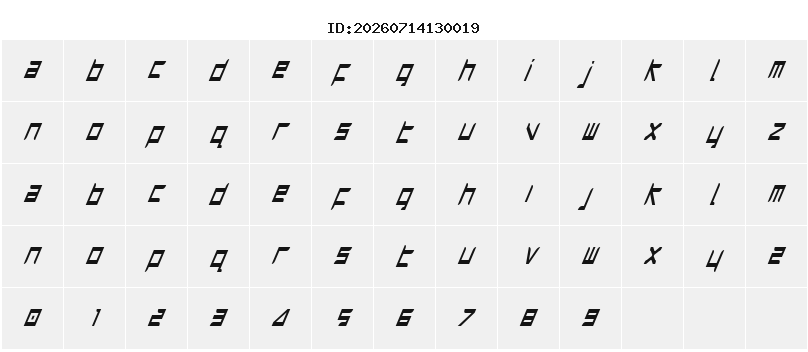
Harrier Condensed Italic Preview
• Font Name: Harrier Condensed Italic
• Font Style: Condensed Italic
• Font ID: Harrier
• Full Font Name: Harrier Condensed Italic
About Harrier Condensed Italic.ttf
Harrier Condensed Italic.ttf is a modern, elegant sans-serif font designed for ultimate readability and visual harmony. Perfect for branding, headlines, web design, and print materials.